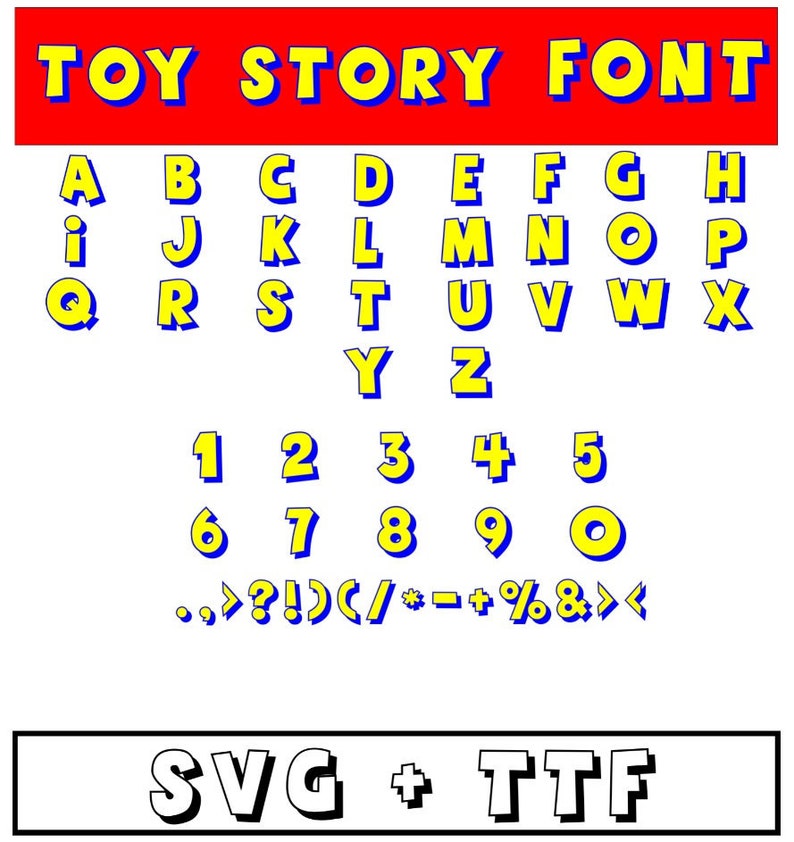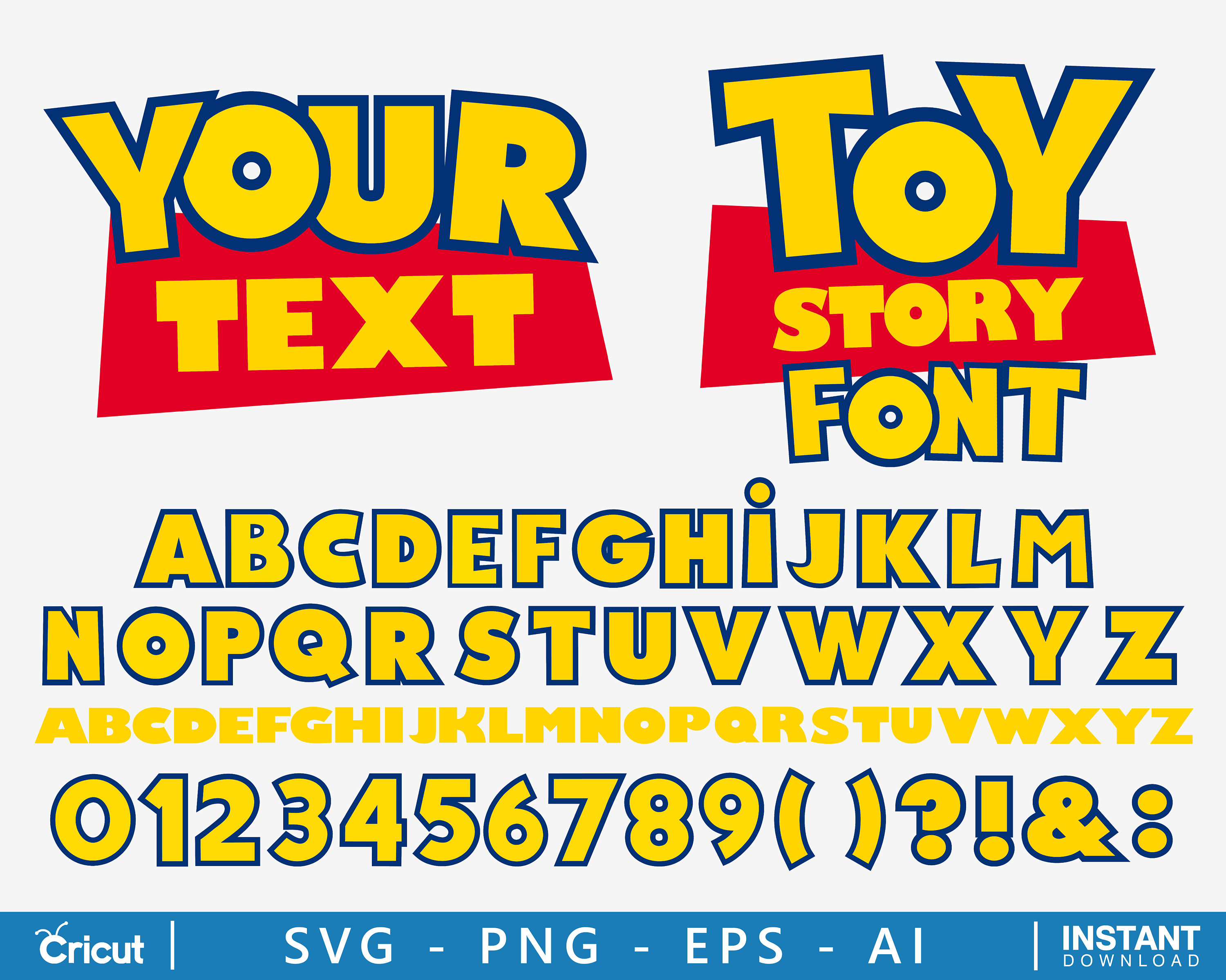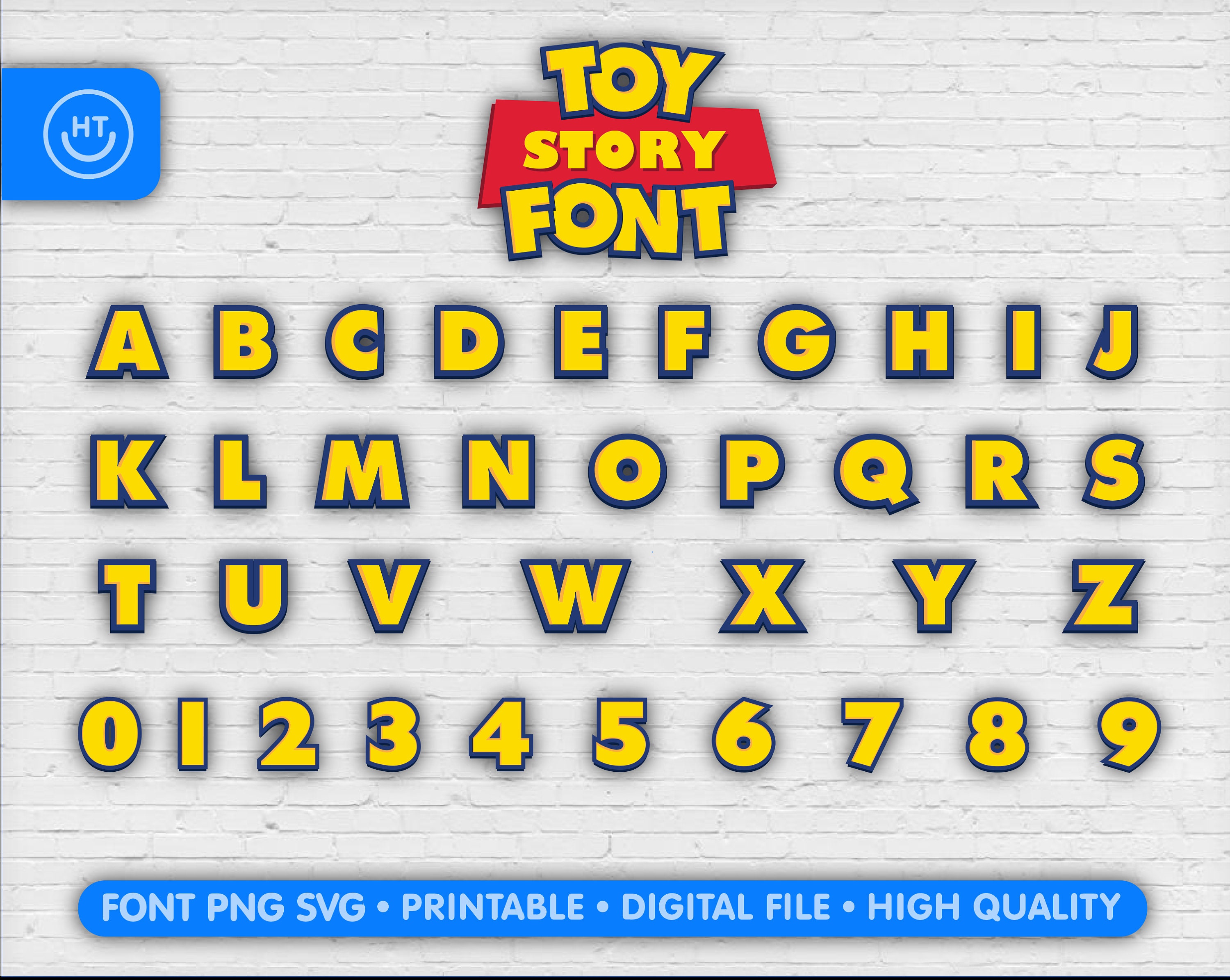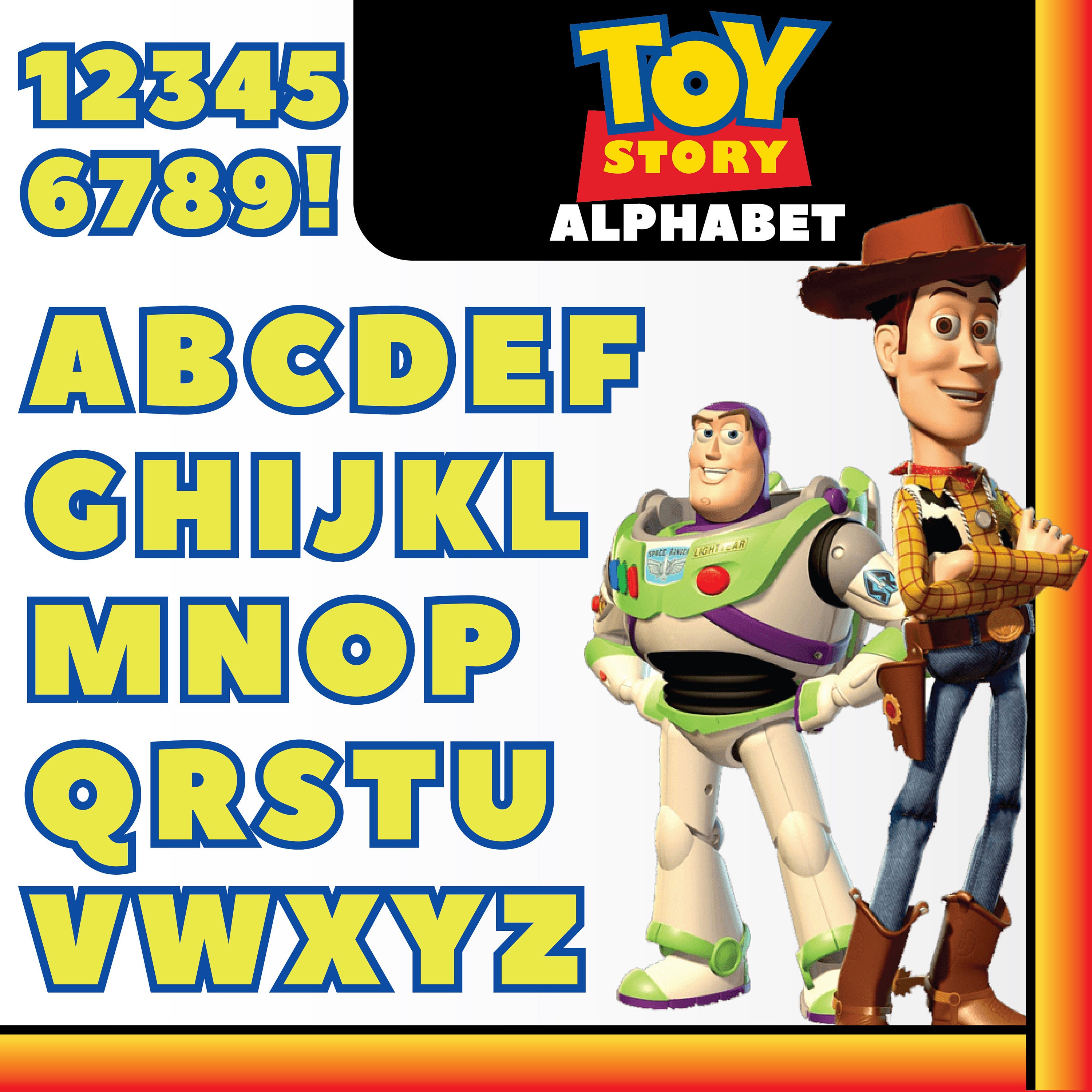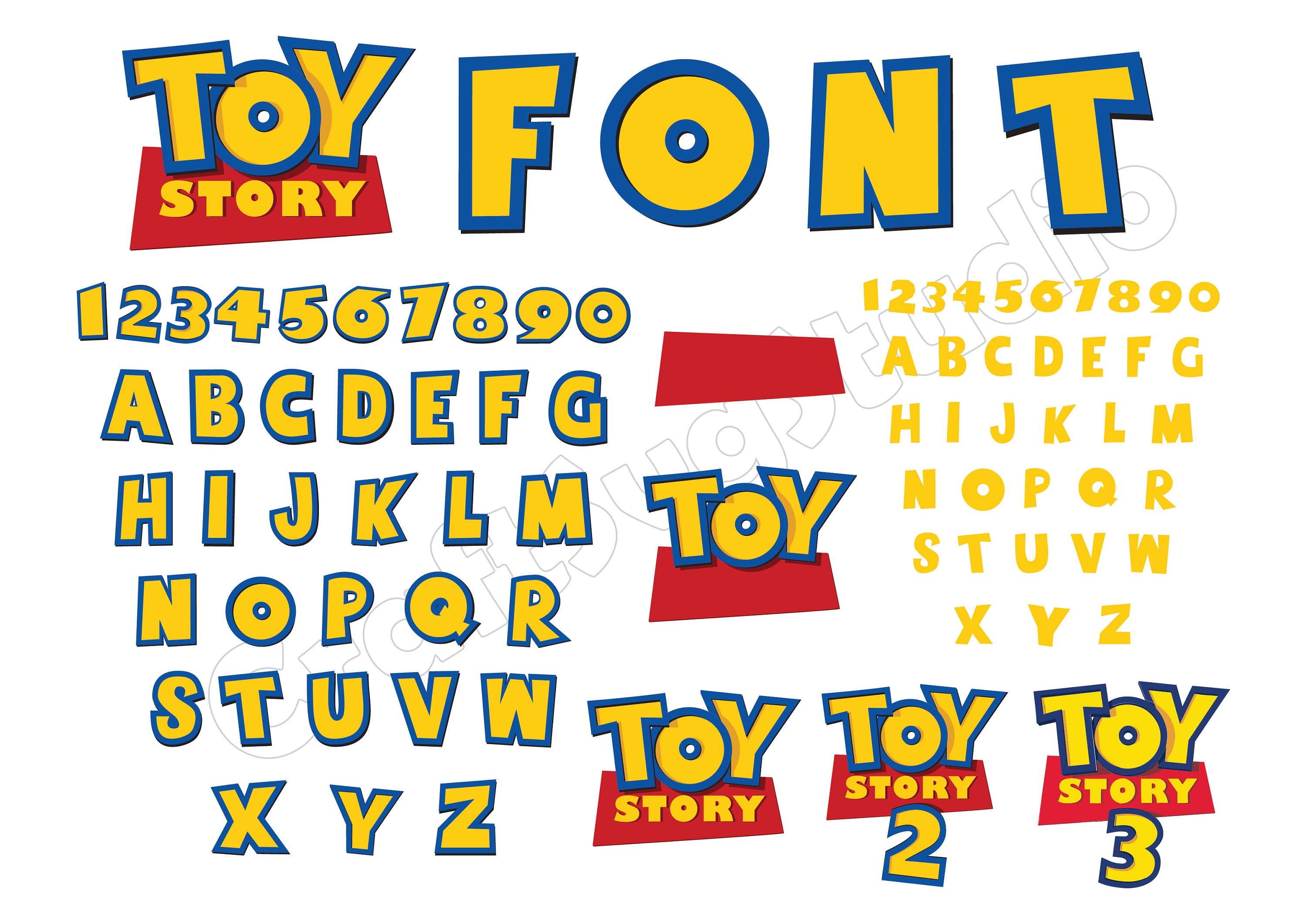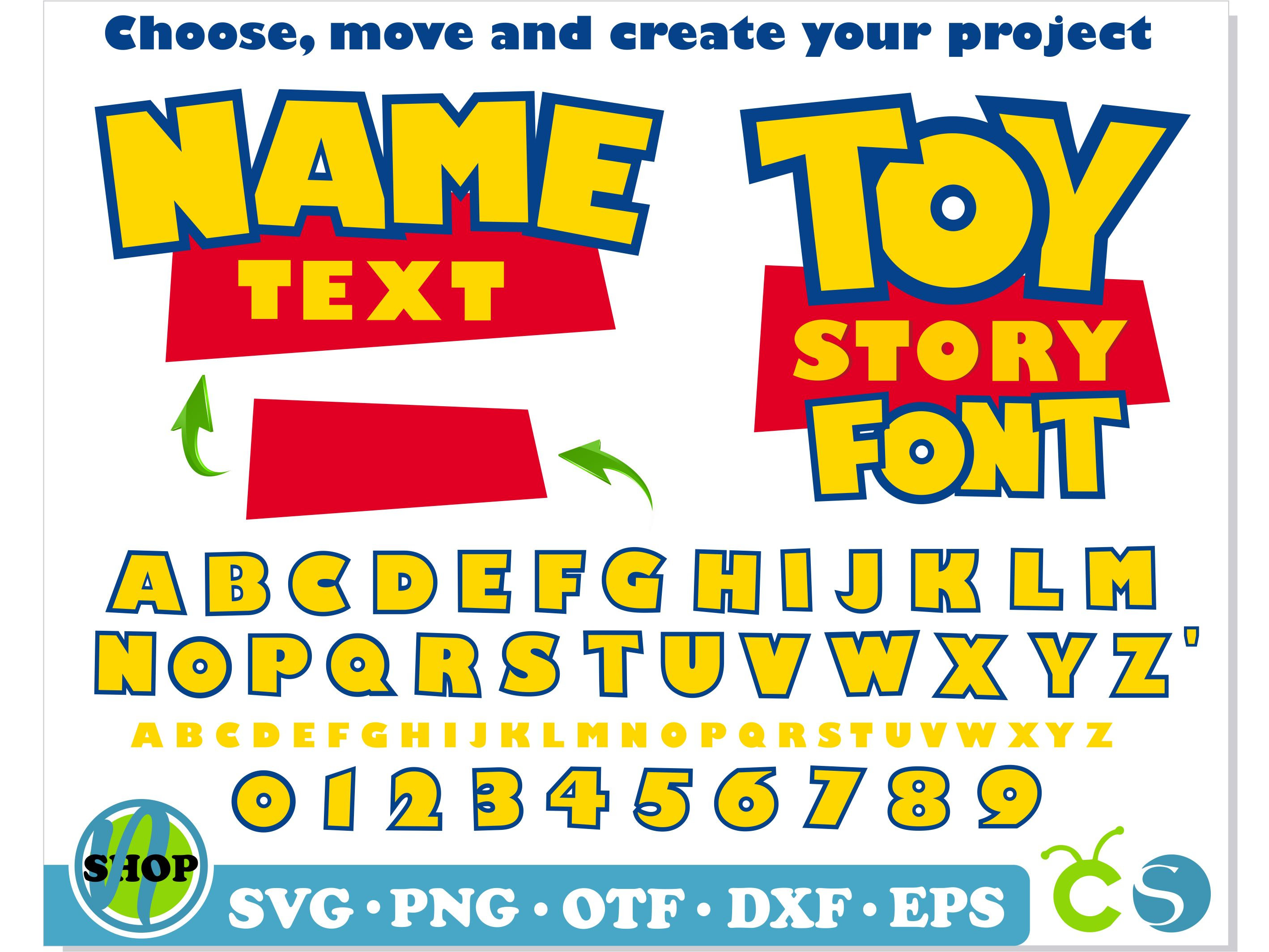
Toy Story Letter Font
Toy Story Letter Font - Web toy story font generator & download is available free at fontbolt. Use the text generator below to convert your text into graphics online with toy story font, you can then save the image or click on. We suggest you use thick sans serifs for. Two fonts called agent red and agent orange by pizzadude are very similar to the. The toy story logo consists of two parts: Just enter your text and select a font to get started. Try our text generator and create cool graphics for toy story font, then you can save the font. Web toy story the text generator below will let you create a toy story like logo. Web create text graphics with toy story font. Web the “toy” part seems to be designed using customized comic lettering.
Web the “toy” part seems to be designed using customized comic lettering. We suggest you use thick sans serifs for. Web toy story font generator & download is available free at fontbolt. Try our text generator and create cool graphics for toy story font, then you can save the font. Web toy story the text generator below will let you create a toy story like logo. The toy story logo consists of two parts: Just enter your text and select a font to get started. Web toy story font the toy story logo fonts. Use the text generator below to convert your text into graphics online with toy story font, you can then save the image or click on. Two fonts called agent red and agent orange by pizzadude are very similar to the.
Web the “toy” part seems to be designed using customized comic lettering. Web create text graphics with toy story font. Use the text generator below to convert your text into graphics online with toy story font, you can then save the image or click on. Try our text generator and create cool graphics for toy story font, then you can save the font. The toy story logo consists of two parts: Just enter your text and select a font to get started. Two fonts called agent red and agent orange by pizzadude are very similar to the. Web toy story font generator & download is available free at fontbolt. We suggest you use thick sans serifs for. Web toy story the text generator below will let you create a toy story like logo.
Web the “toy” part seems to be designed using customized comic lettering. Web toy story font the toy story logo fonts. Just enter your text and select a font to get started. Try our text generator and create cool graphics for toy story font, then you can save the font. Two fonts called agent red and agent orange by pizzadude.
Web toy story font generator & download is available free at fontbolt. Just enter your text and select a font to get started. Two fonts called agent red and agent orange by pizzadude are very similar to the. Web toy story font the toy story logo fonts. We suggest you use thick sans serifs for.
Web the “toy” part seems to be designed using customized comic lettering. Use the text generator below to convert your text into graphics online with toy story font, you can then save the image or click on. Just enter your text and select a font to get started. Web toy story font the toy story logo fonts. Web create text.
Use the text generator below to convert your text into graphics online with toy story font, you can then save the image or click on. Web toy story font the toy story logo fonts. Web create text graphics with toy story font. Just enter your text and select a font to get started. Web the “toy” part seems to be.
Web toy story the text generator below will let you create a toy story like logo. Web toy story font generator & download is available free at fontbolt. We suggest you use thick sans serifs for. Two fonts called agent red and agent orange by pizzadude are very similar to the. The toy story logo consists of two parts:
Web toy story font generator & download is available free at fontbolt. Two fonts called agent red and agent orange by pizzadude are very similar to the. Use the text generator below to convert your text into graphics online with toy story font, you can then save the image or click on. The toy story logo consists of two parts:.
Just enter your text and select a font to get started. Try our text generator and create cool graphics for toy story font, then you can save the font. We suggest you use thick sans serifs for. Web toy story font the toy story logo fonts. Web create text graphics with toy story font.
Web create text graphics with toy story font. Web toy story font generator & download is available free at fontbolt. Try our text generator and create cool graphics for toy story font, then you can save the font. Web toy story font the toy story logo fonts. Use the text generator below to convert your text into graphics online with.
Web toy story font the toy story logo fonts. Use the text generator below to convert your text into graphics online with toy story font, you can then save the image or click on. Two fonts called agent red and agent orange by pizzadude are very similar to the. Web toy story the text generator below will let you create.
The Toy Story Logo Consists Of Two Parts:
Use the text generator below to convert your text into graphics online with toy story font, you can then save the image or click on. Two fonts called agent red and agent orange by pizzadude are very similar to the. Web toy story the text generator below will let you create a toy story like logo. Web toy story font the toy story logo fonts.